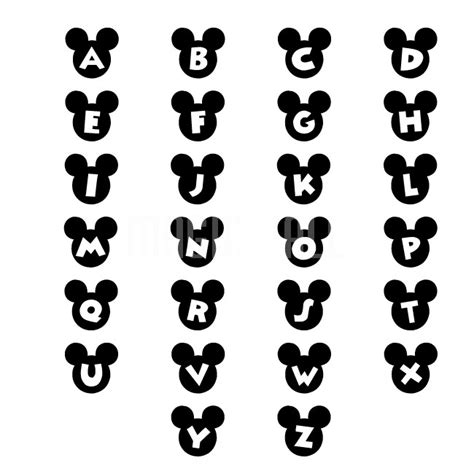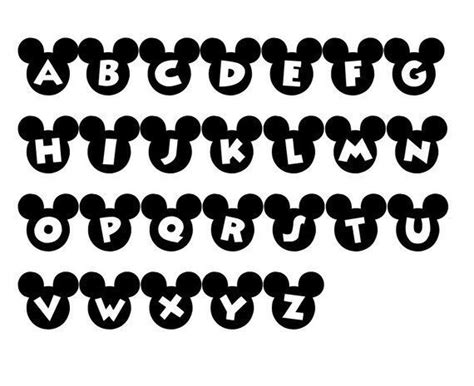
MICKEY MOUSE HEAD FONT
Introducing the iconic and beloved Mickey Mouse Head Font, a unique and playful typography inspired by the iconic character. This font is a delightful tribute to the famous mouse, capturing the essence of his charming personality and timeless appeal.
The font features a stylized representation of Mickey's head, with a friendly and recognizable smile. It is designed to evoke a sense of nostalgia and joy, transporting users back to the golden age of animation. With its curved lines and playful curves, this font is perfect for creating a whimsical and lighthearted atmosphere.
The font's design also incorporates elements from Disney's rich history, paying homage to the company's iconic characters and films. This attention to detail makes it a valuable asset for those seeking to create authentic and nostalgic designs.